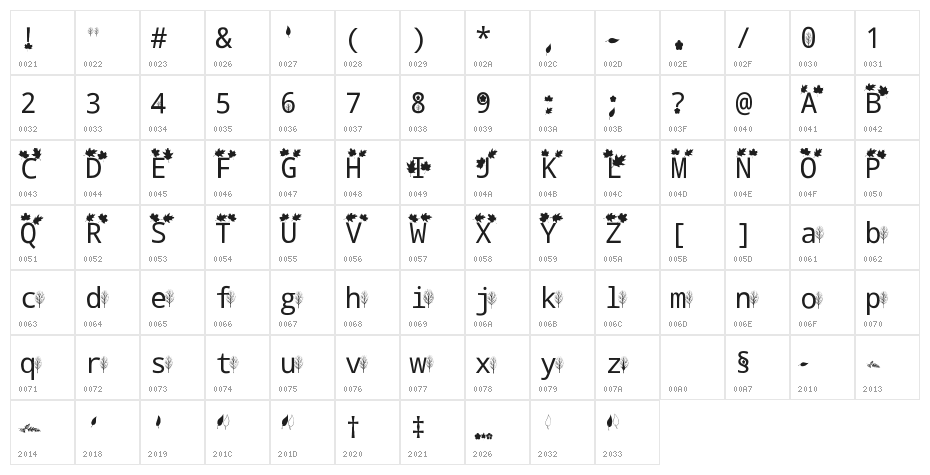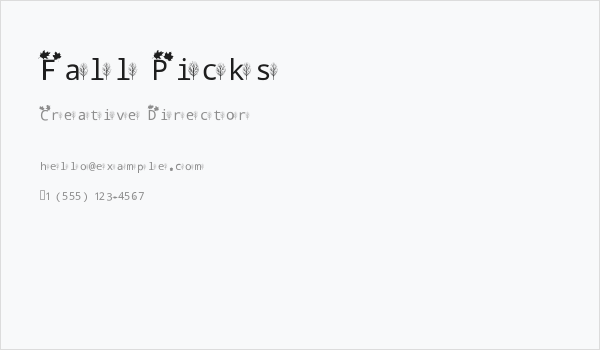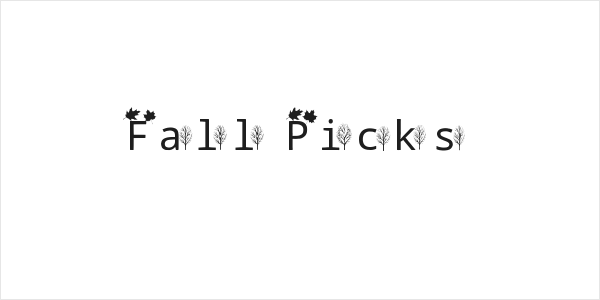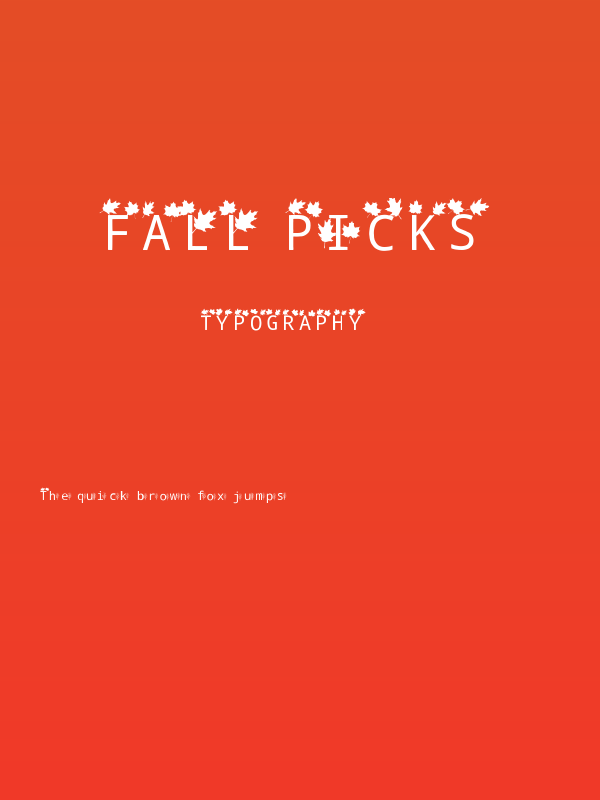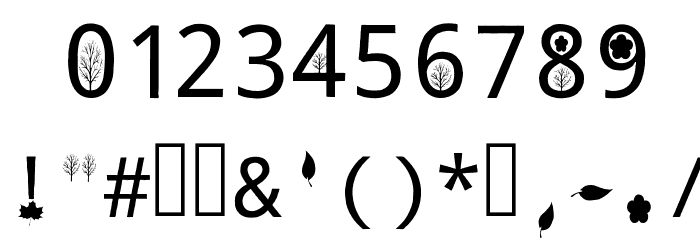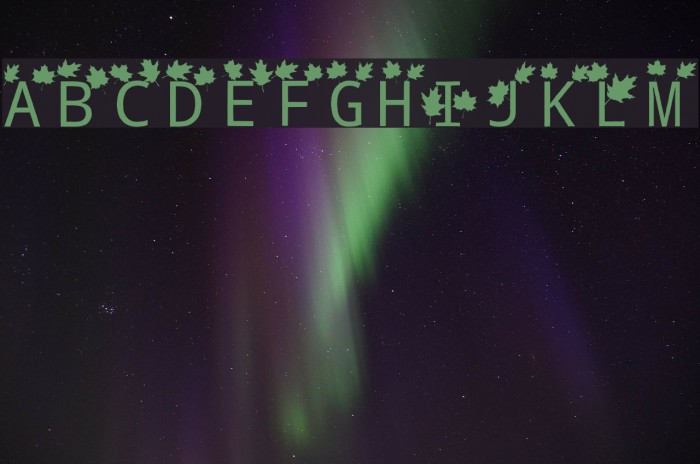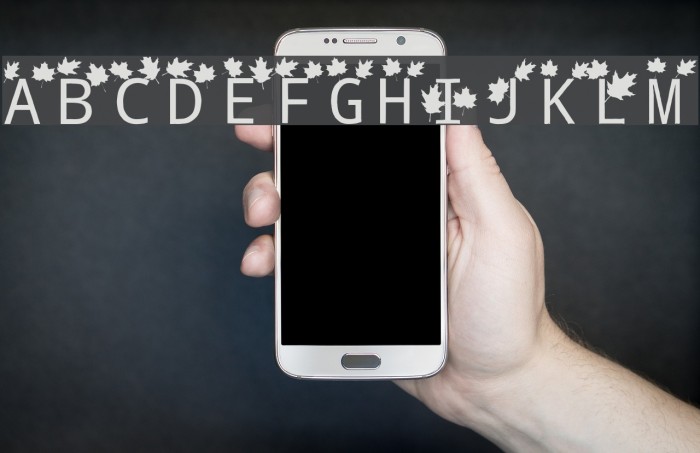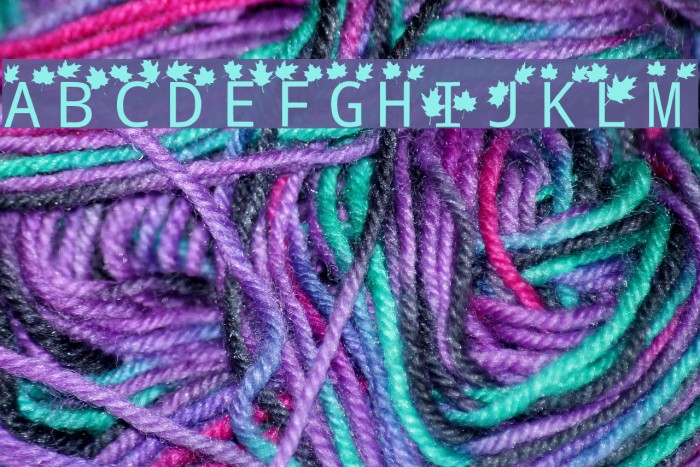
Fall Picks Font
Fall Picks Description
This font features a unique and decorative style, incorporating autumn-themed elements such as leaves and trees into the design of each character. The uppercase letters are adorned with a row of leaves above them, creating a festive and seasonal appearance. The lowercase letters integrate tree motifs, adding a whimsical and nature-inspired touch. The numerals and special characters continue this theme, with some characters featuring leaf or tree embellishments. This font is perfect for projects that aim to capture the essence of fall or nature, offering a playful yet elegant aesthetic.
| Use Case | Headlines, Logos, Decorative text |
| Proposed Projects | Ideal for seasonal greeting cards, fall festival posters, nature-themed branding, and decorative invitations. |